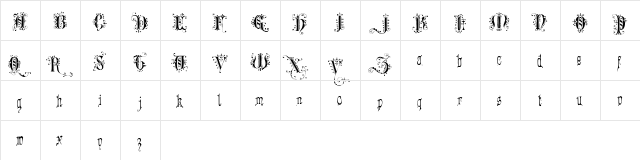
Romantically Yours Regular
Design Context for Romantically Yours Typeface
Romantically Yours is a composed and adaptable typeface that performs quietly and consistently across a wide range of design contexts.